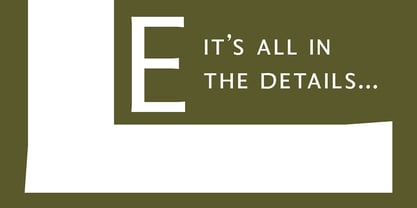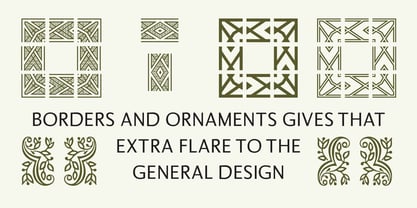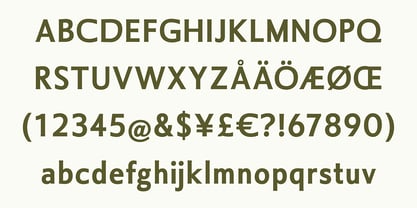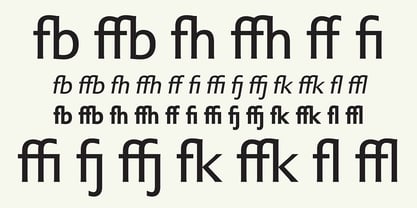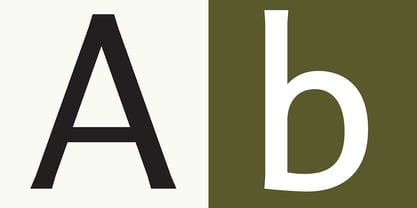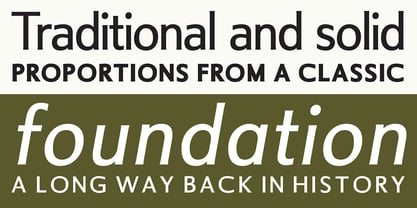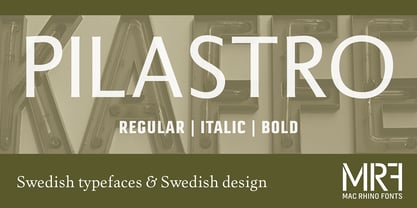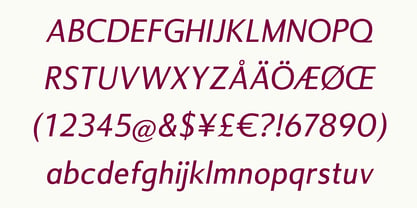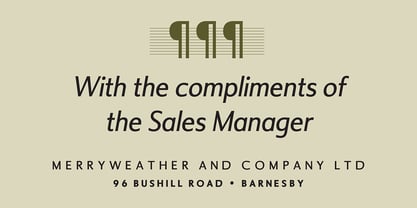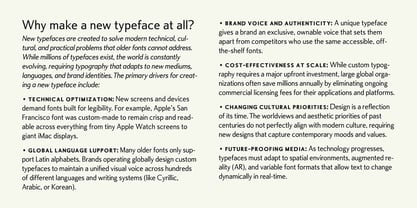
Pilastro
The Pilastro Font Family was designed by Stefan Hattenbach and published by MAC Rhino Fonts. Pilastro contains 3 styles and family package options. More about this family
Pilastro is a captivating typeface that playfully engages with Roman letters, often known as Trajanus letters. While the proportions of the uppercase characters draw inspiration from classic inscribed letters, this typeface adopts a modern twist. The Regular weight, along with Italic and Bold variations, creates a compact yet versatile family. Each weight includes an extended Latin character set, a robust selection of ligatures, and decorative ornaments and borders, providing designers with a wide range of creative possibilities. Pilastro is designed primarily for display use in larger sizes, yet it is also crafted to perform beautifully in smaller sizes, making it an excellent choice for various design applications.
MRF (MAC Rhino Fonts) was established in 2003 (first website in 2004), but founder Stefan Hattenbach has been producing fonts since 1997. He also has 40 years of experience from the advertising and graphic design business which gives him a clear vision how to visualise the directions and goals for his typefaces. The foundry operates as an independent studio, collaborating with its partners in various disciplines whenever necessary. MRF has accelerated its type design efforts since the start and is now working full time with various type solutions, along with the ever expanding retail collection. Occasionally projects involving advertising, graphic design work and logotype creations are accepted, Though the main focus will always be set on typography. Apart from the website itself, most of the MRF retail typefaces are available from a variety of quality vendors such as Adobe, FontShop, Fonts.com, Linotype, Monotype, MyFonts and PsyOps Type Foundry. See examples of custom work, a full range of retail typeface and more from the source www.macrhino.com